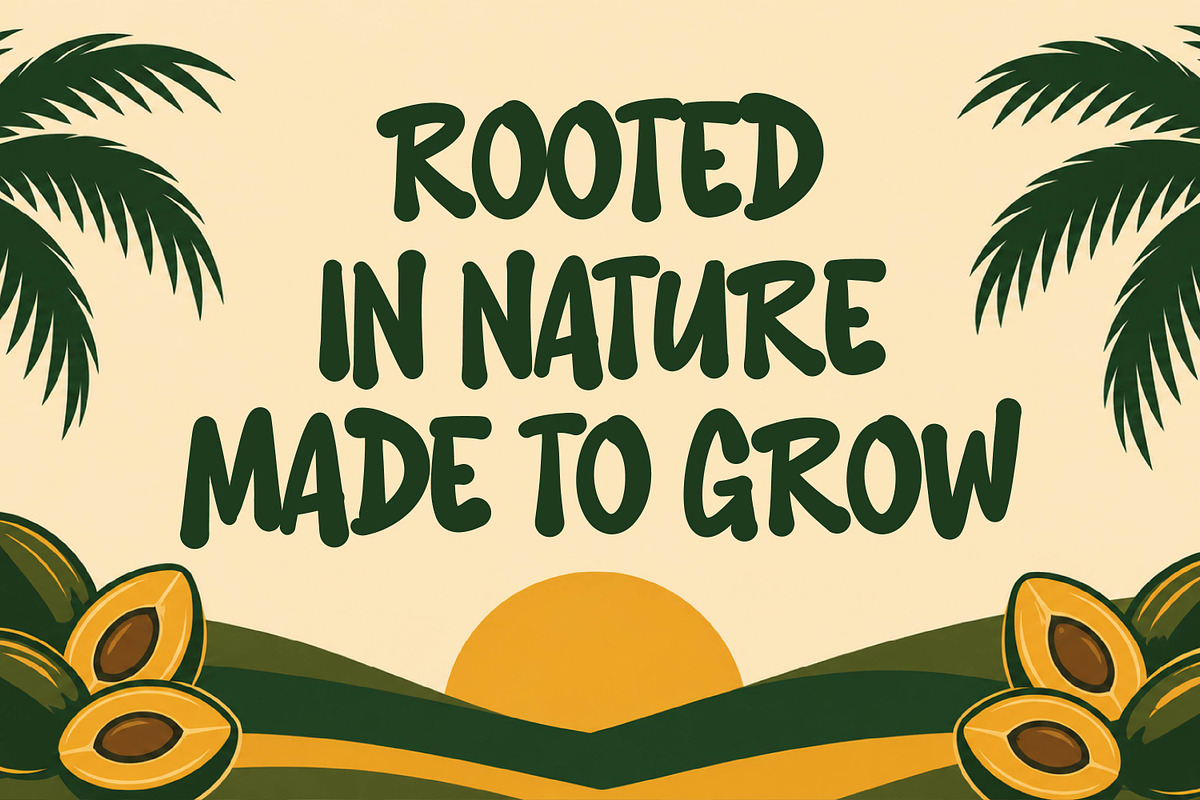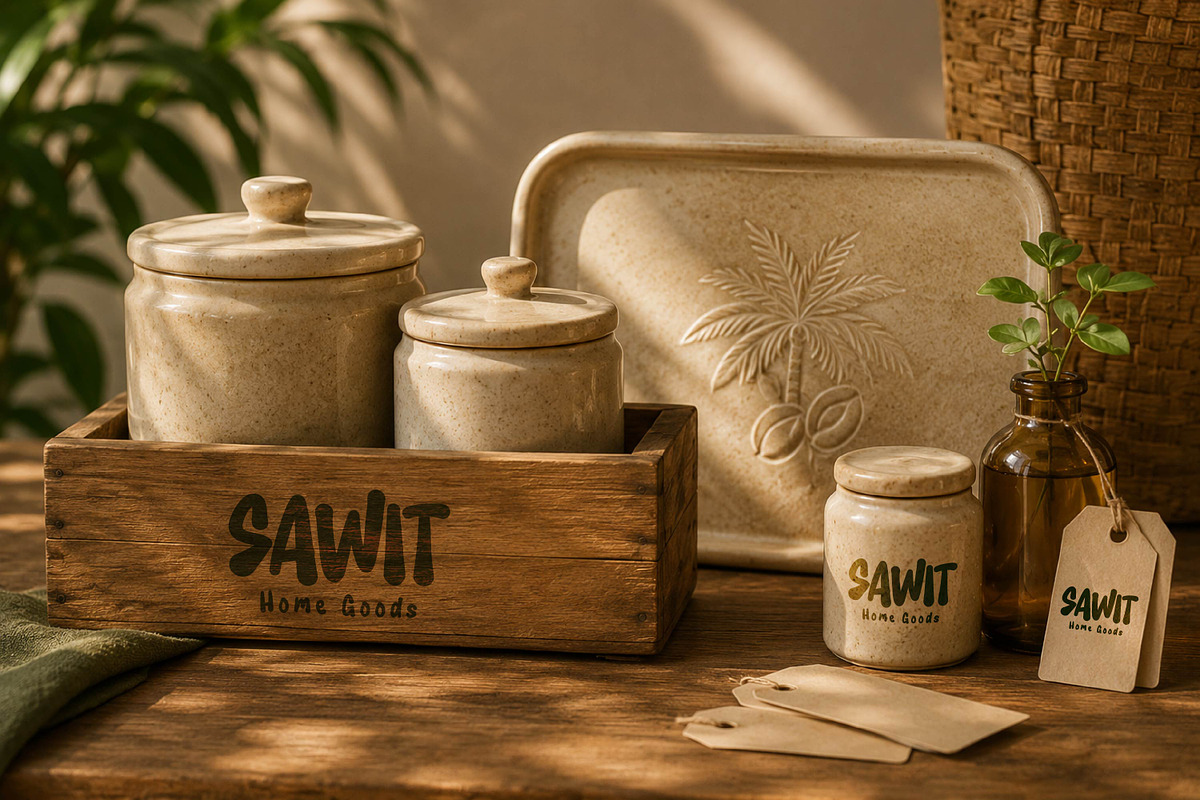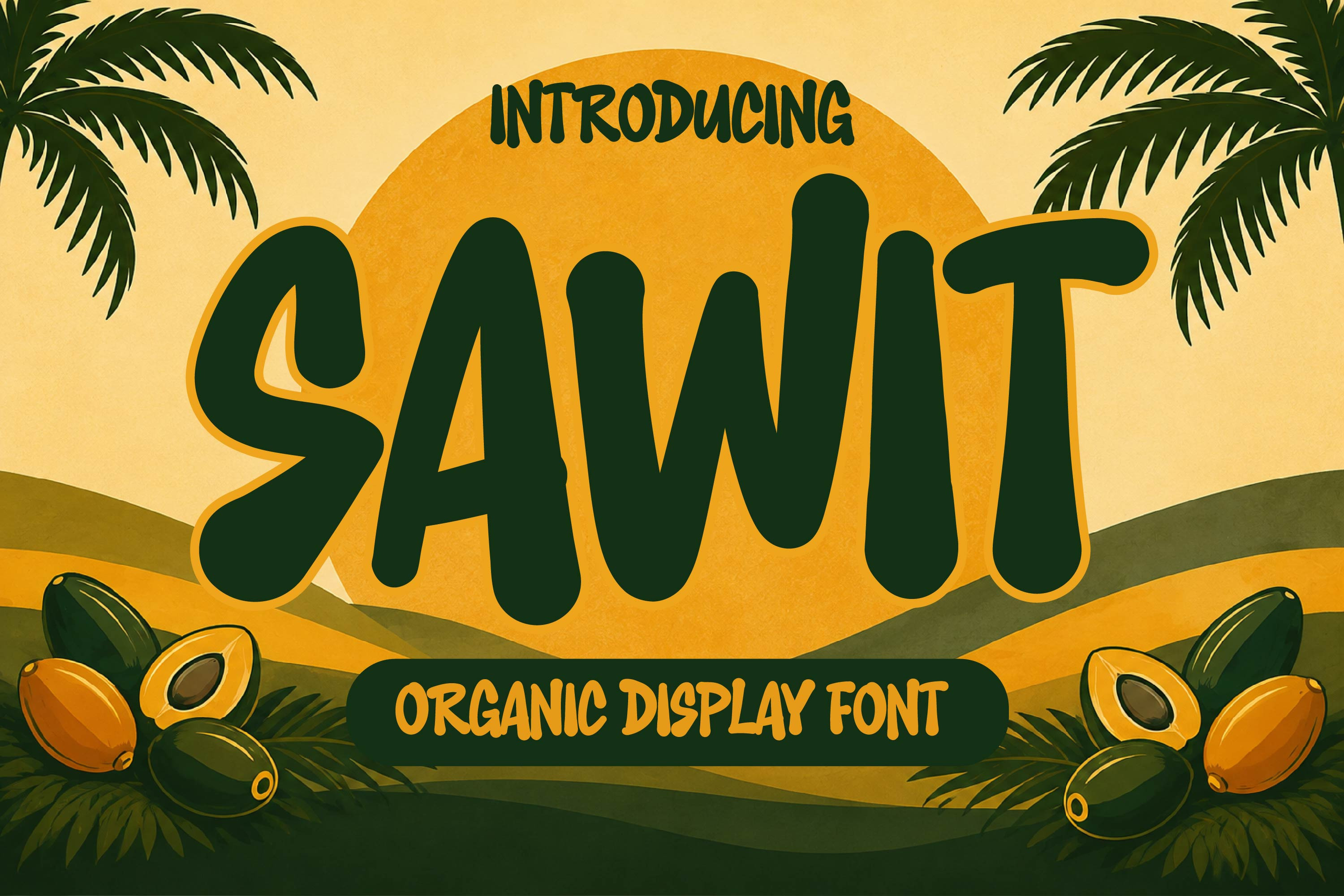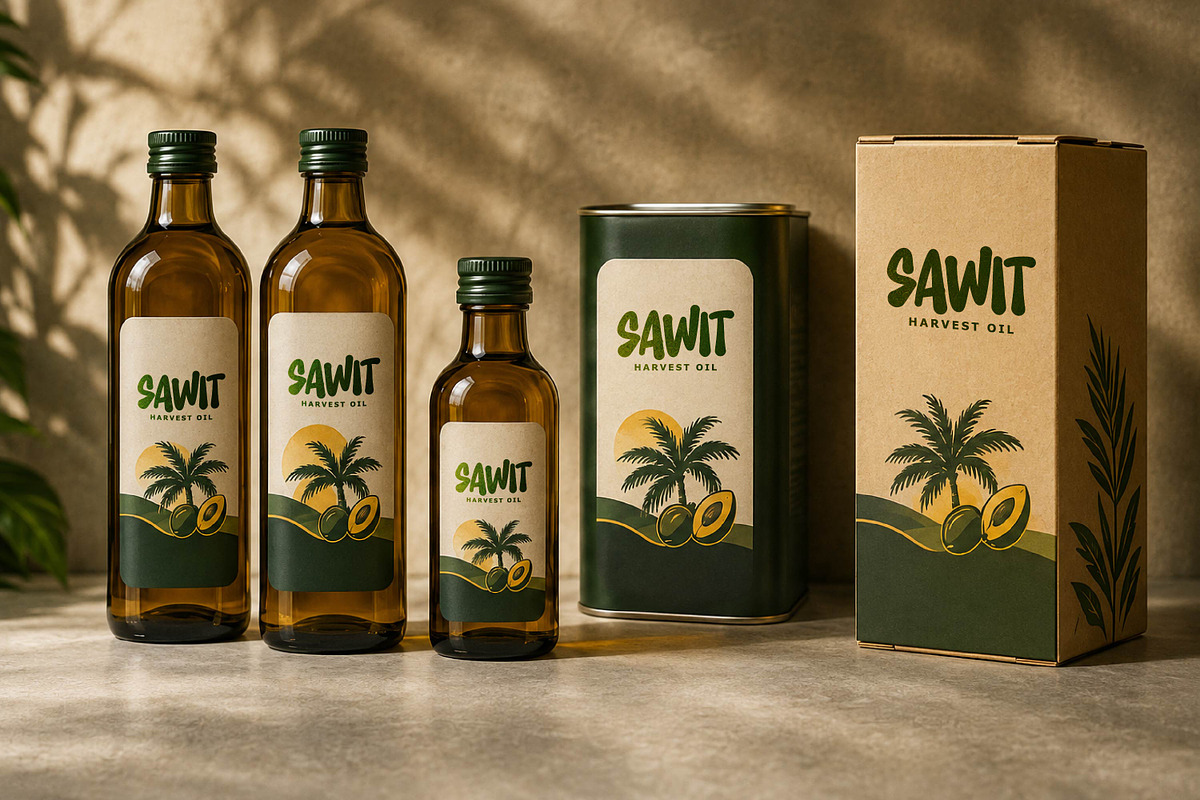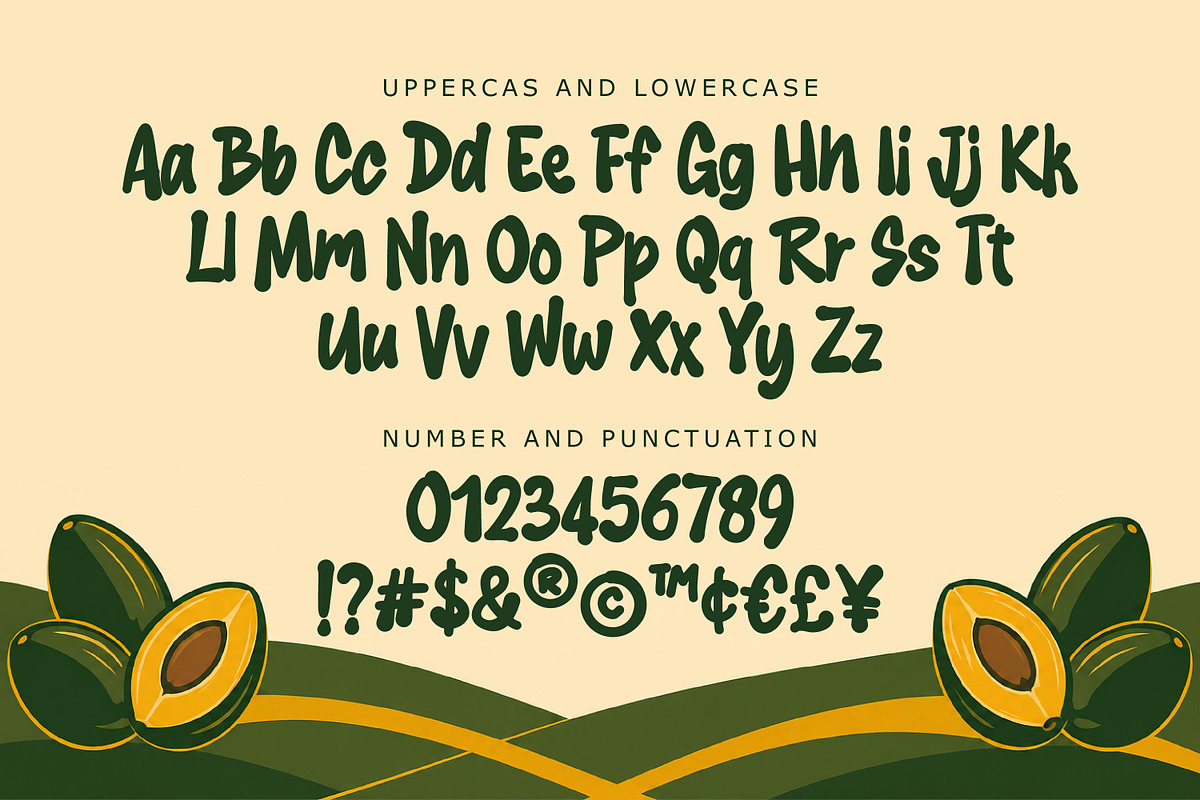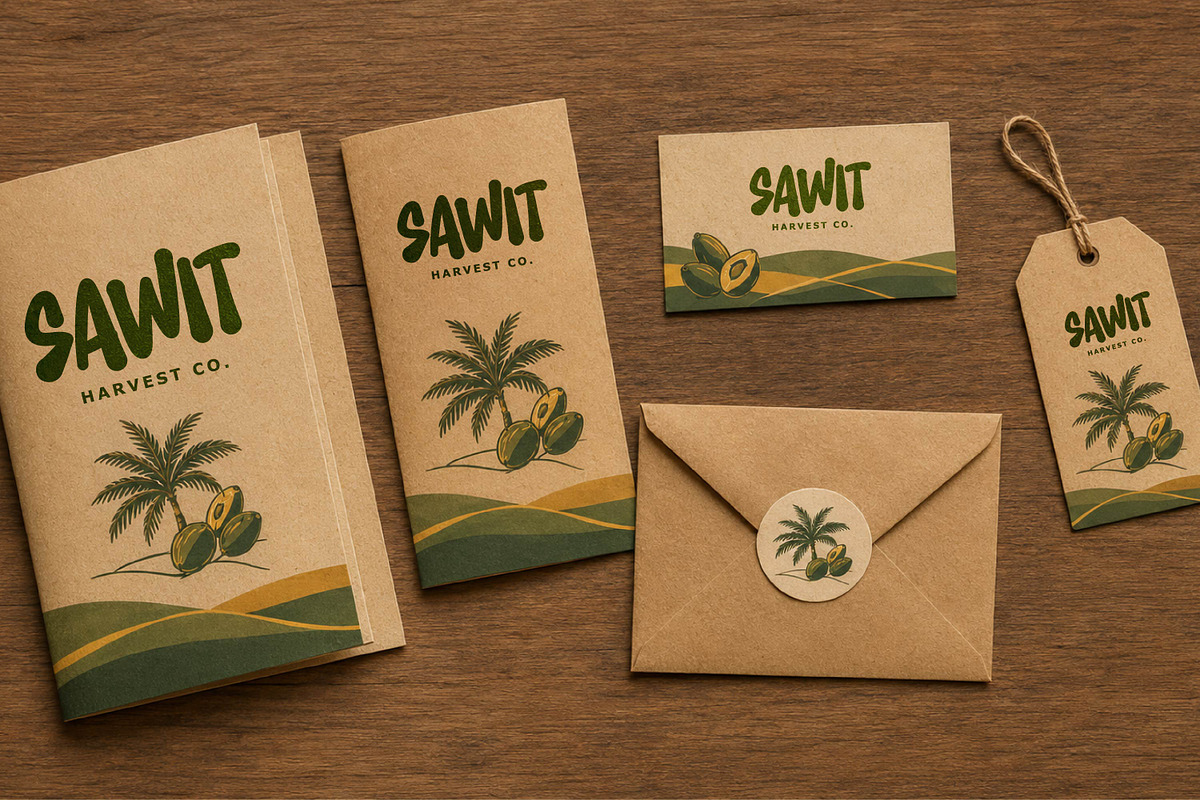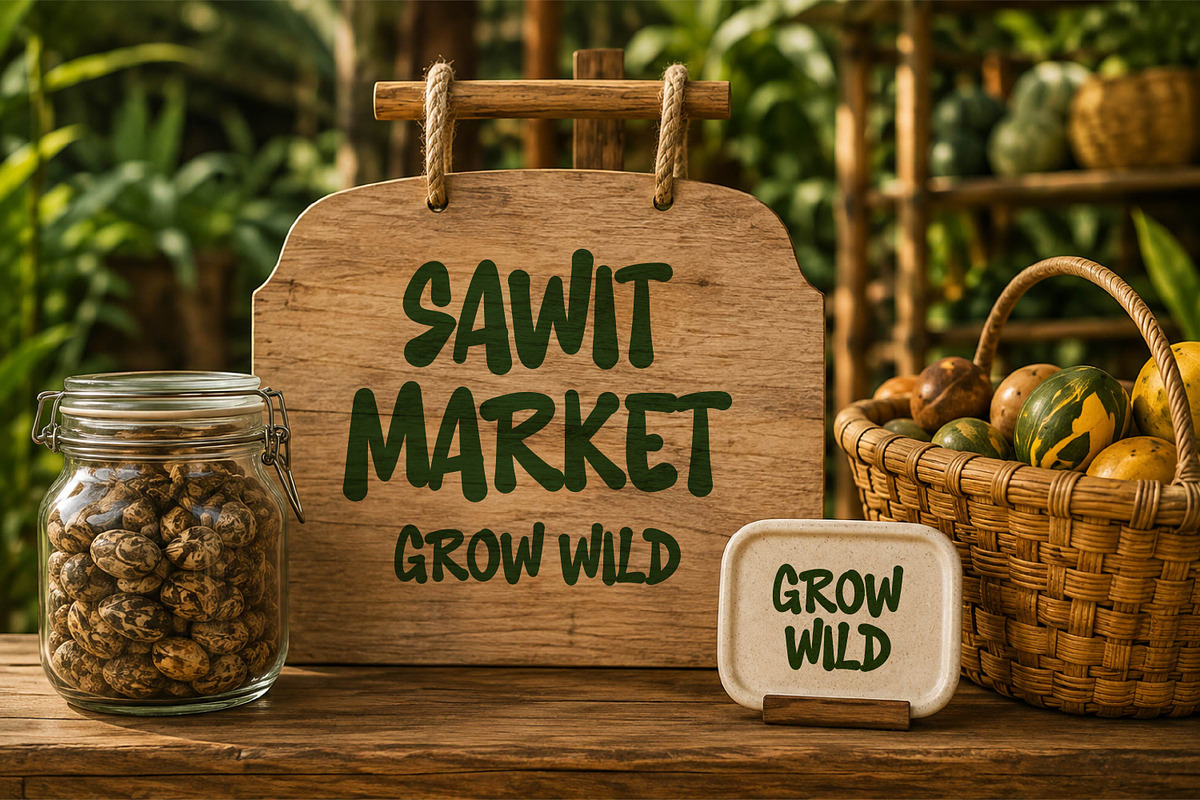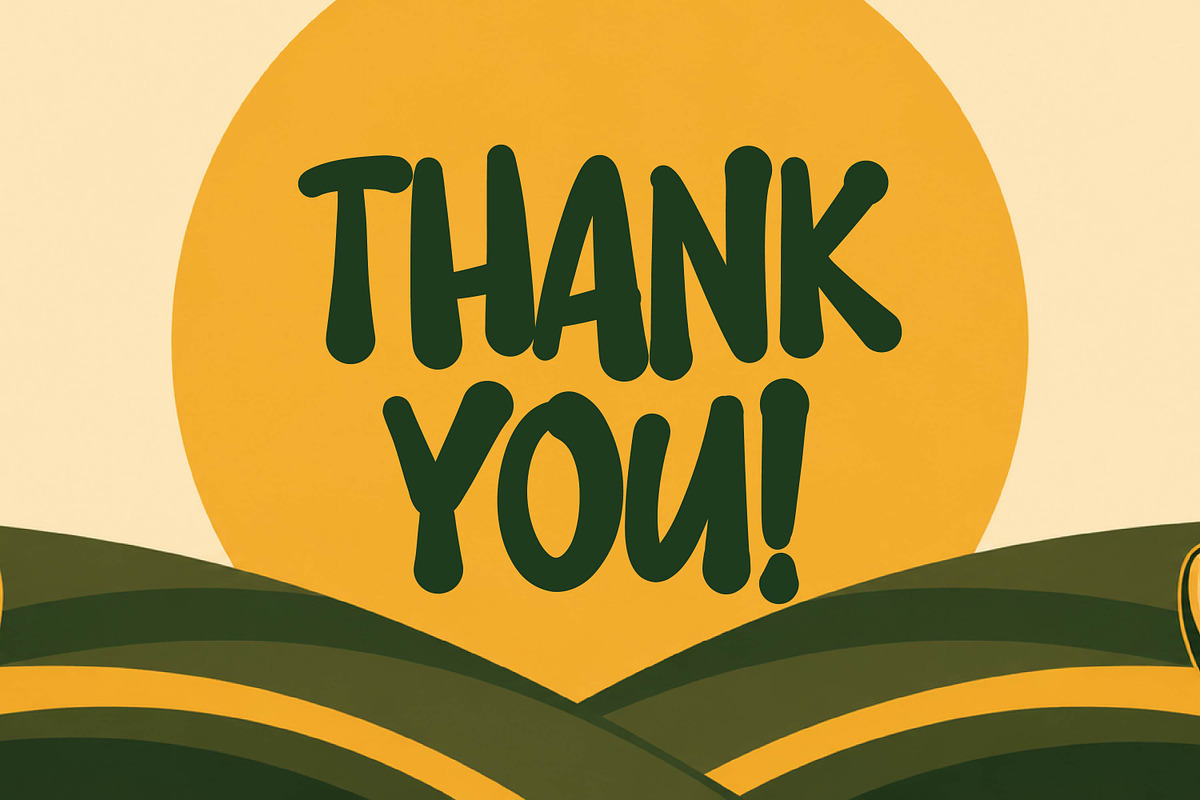
Sawit - Organic Display Font
Sawit is an organic display font with bold, flowing letterforms inspired by natural shapes and warm tropical character. Perfect for food packaging, agricultural branding, eco products, posters, logos, labels, tropical themes, and nature-inspired creative projects.